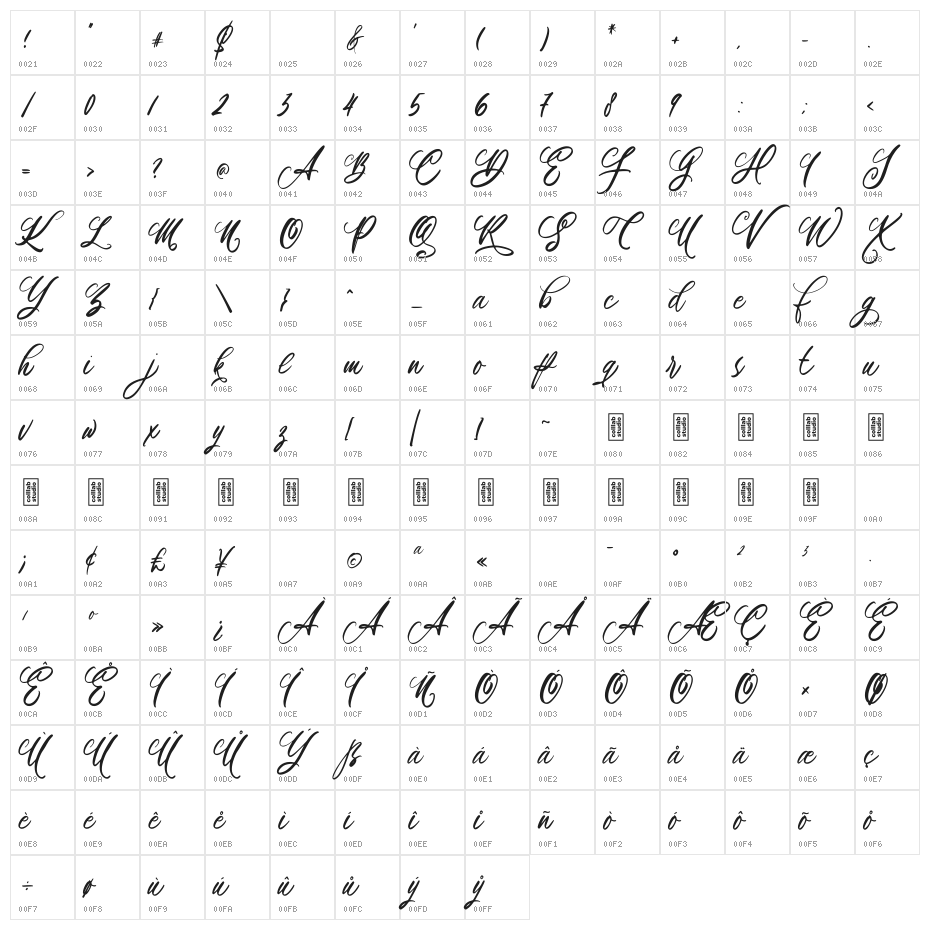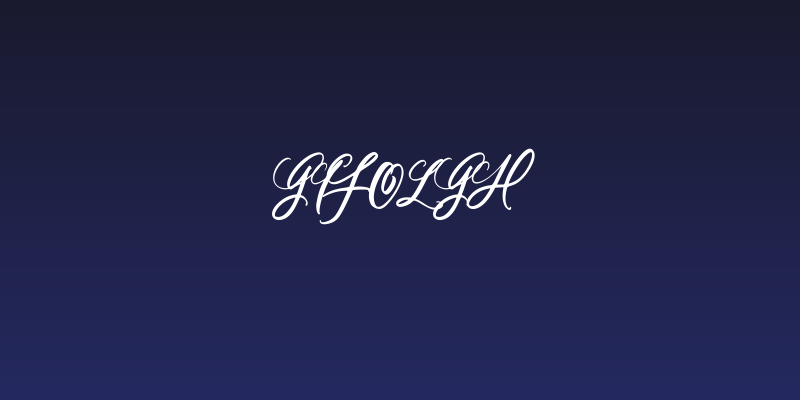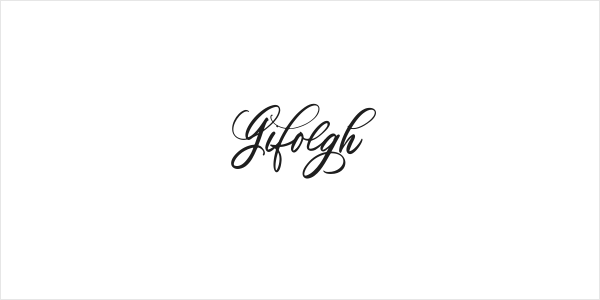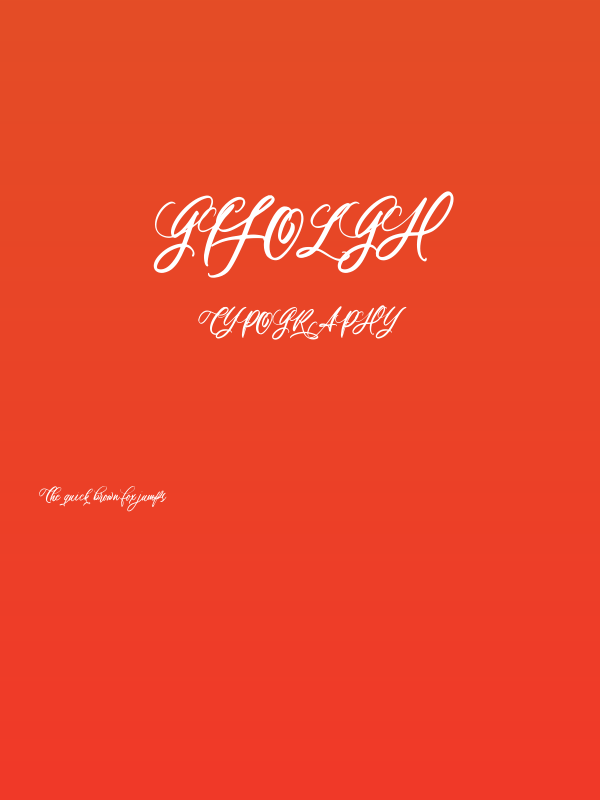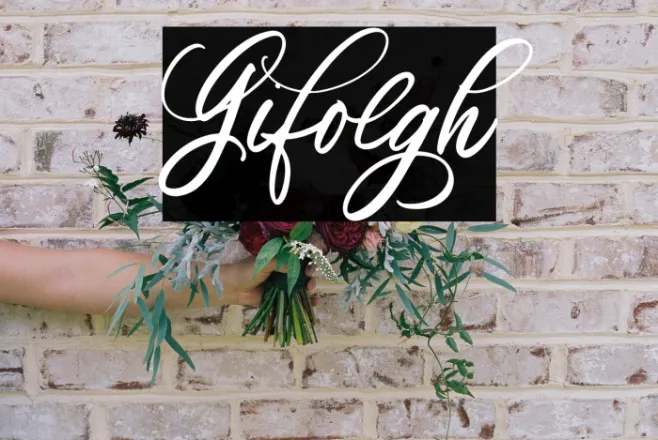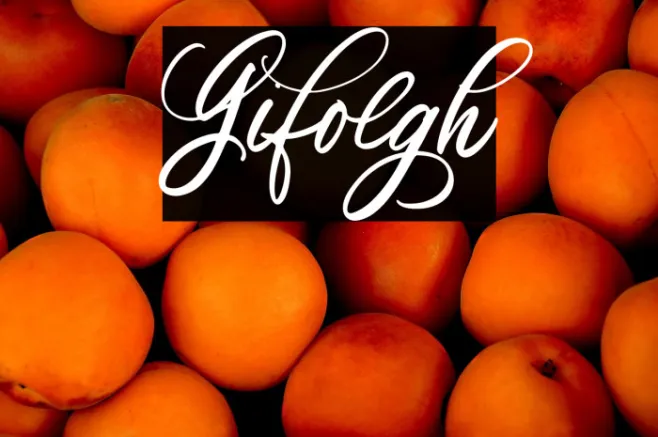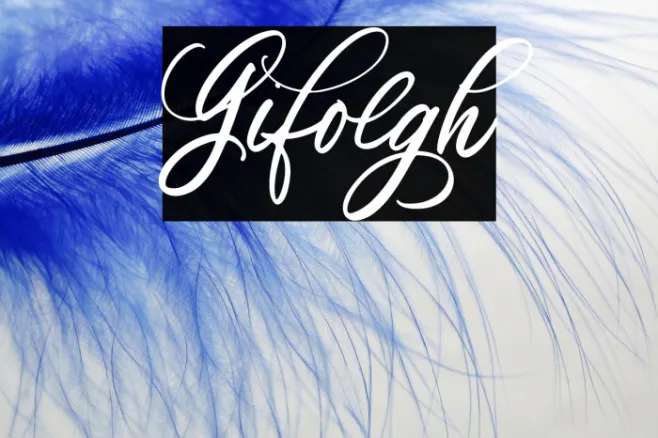
Gifolgh Font
Gifolgh Description
This font exhibits an elegant and flowing script style, characterized by its intricate and decorative letterforms. The uppercase letters are particularly ornate, with elaborate swashes and flourishes that give the font a sophisticated and artistic appearance. The lowercase letters maintain a consistent flow, complementing the uppercase with their graceful curves. The numerals are styled to match the overall aesthetic, ensuring a cohesive look across all characters. Special characters are also designed with the same attention to detail, enhancing the font's versatility. This font is ideal for projects that require a touch of elegance and creativity.
| Use Case | Logos, Invitations, Decorative text. |
| Proposed Projects | Wedding invitations, luxury branding, elegant packaging, artistic posters. |